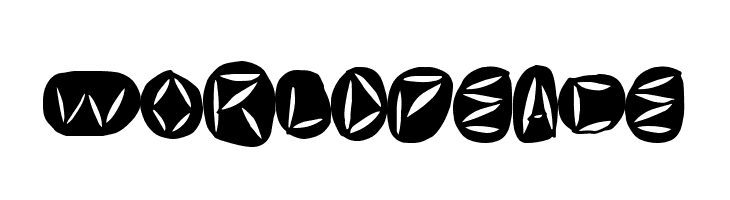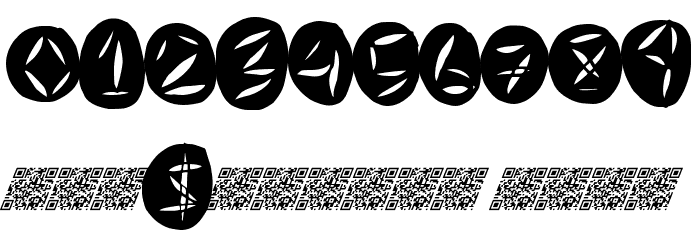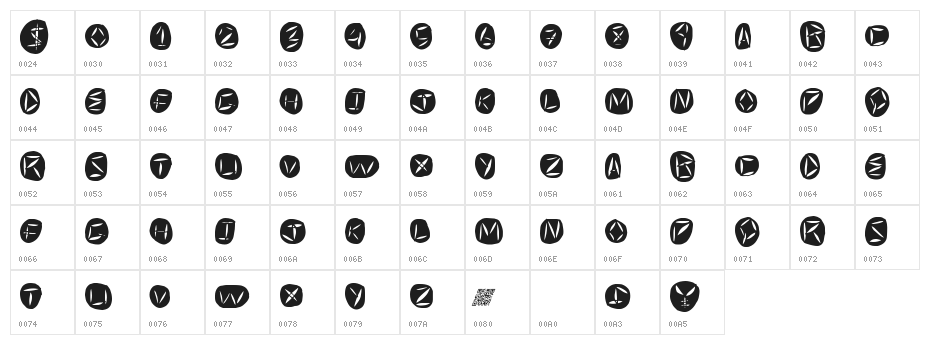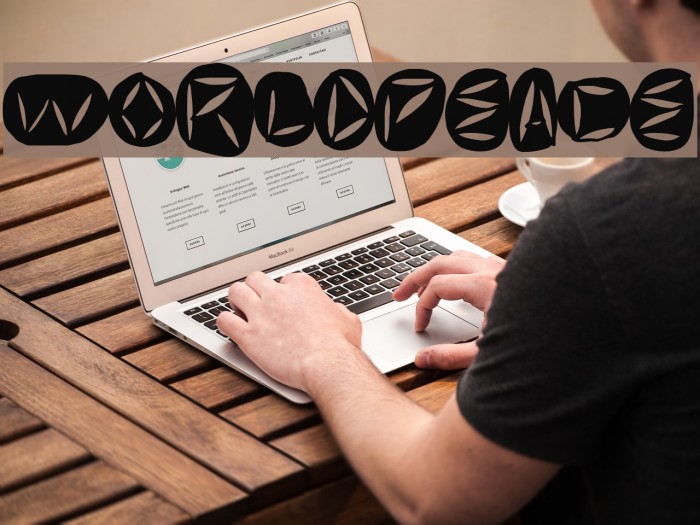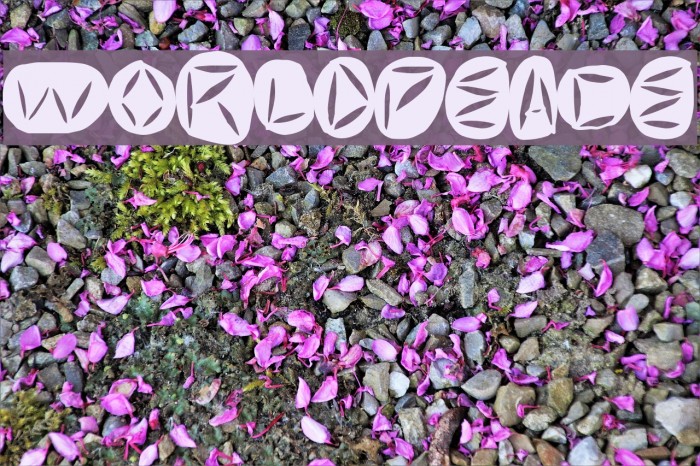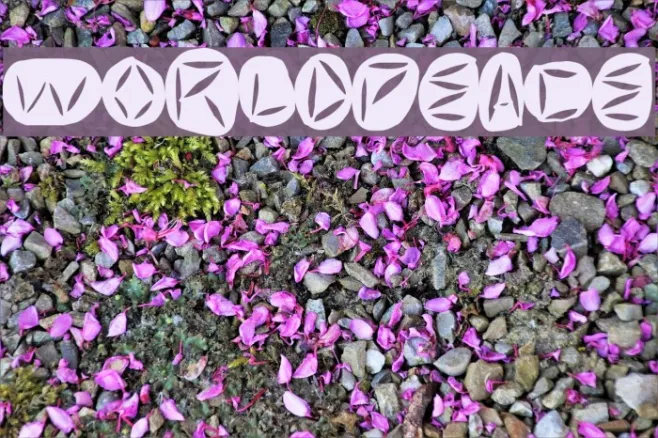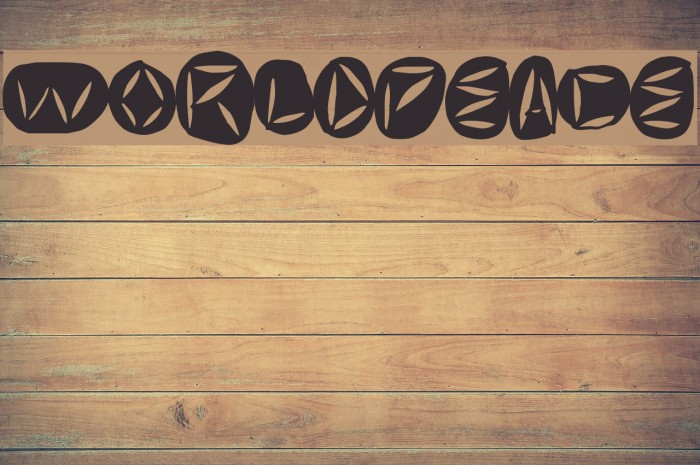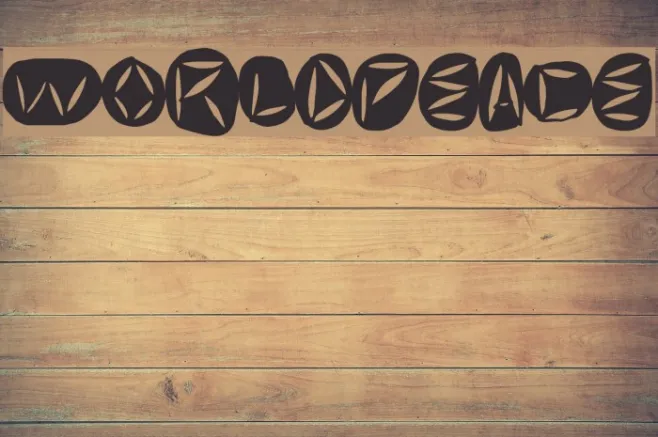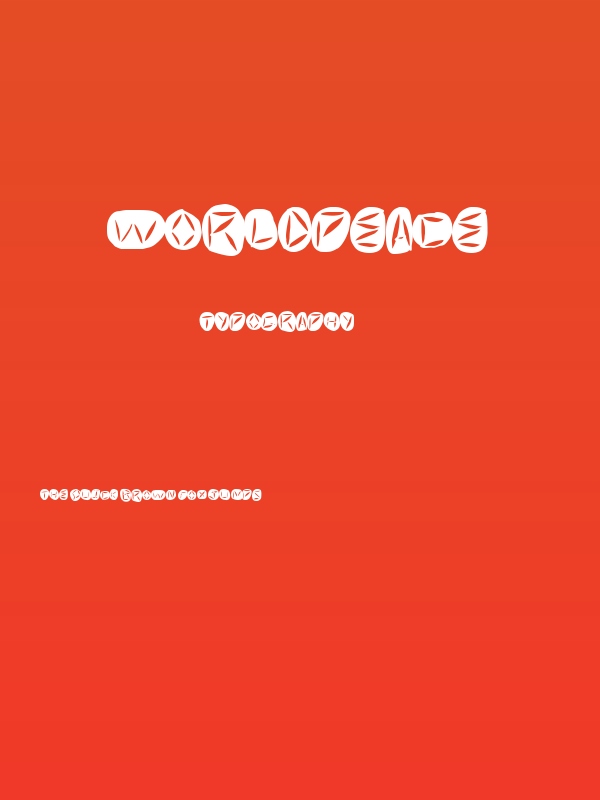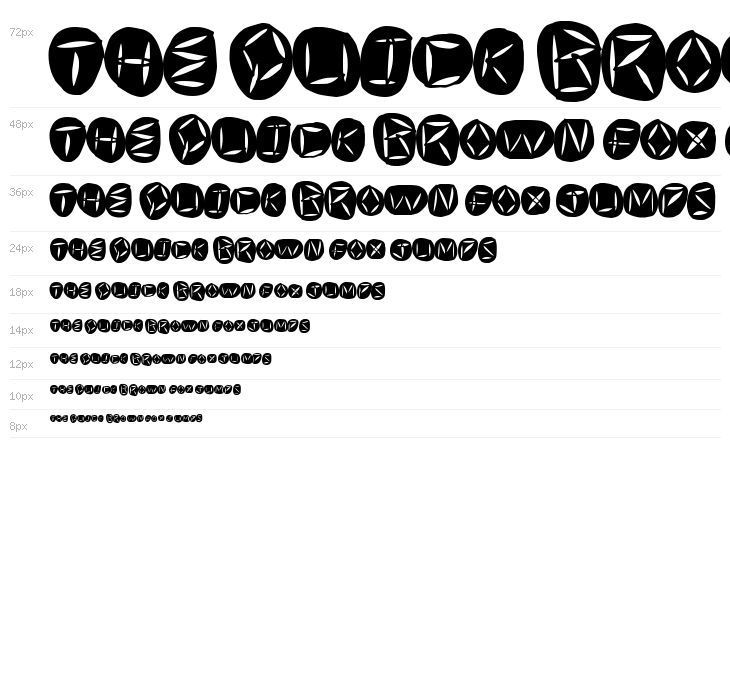
WorldPeace Font
WorldPeace Description
This font features a bold and playful design with each character enclosed in a circular shape. The letters are stylized with sharp, angular cuts that create a dynamic and energetic feel. The overall appearance is reminiscent of abstract art, making it stand out with its unique and artistic flair. The characters are evenly spaced within their circular boundaries, providing a consistent and cohesive look. This font is ideal for projects that require a creative and unconventional touch, offering a visually striking option for designers seeking to make a bold statement.
| Proposed Projects | Ideal for album covers, posters, modern art projects, and creative branding. |